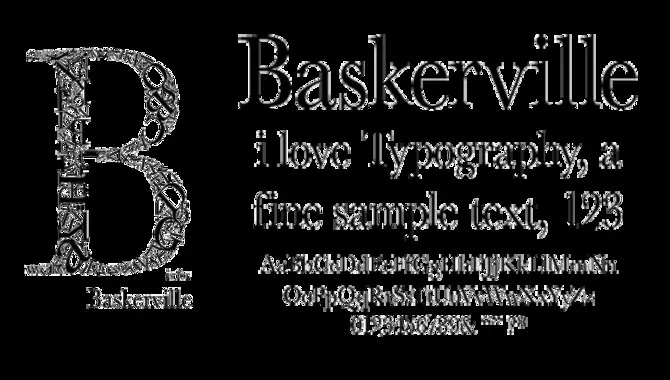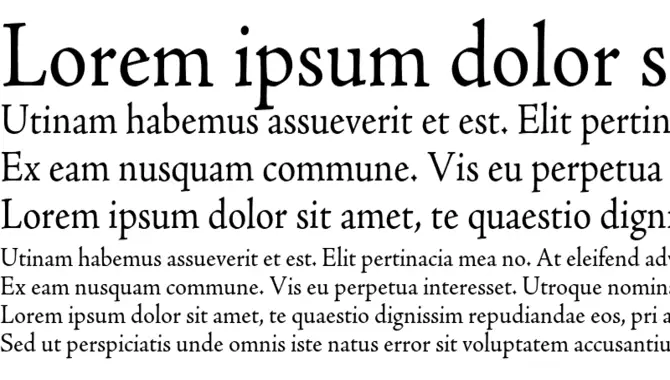
Roman numerals have been handy to represent numbers in various contexts for centuries. From clock faces to chapter headings, Roman numerals are a classic style choice for adding an elegant touch to any graphic design.
With so many options available, it’s easy to get overwhelmed and end up with a font that doesn’t quite fit your needs. When selecting a font for Roman numerals, the process differs slightly from choosing a font for regular letters.
Fonts are crucial for making an impression, and choosing the right one to match the intended tone and message is important. Fonts with smooth curves are widely regarded as the best font for displaying Roman numerals. Its elegant and visually pleasing design that captures the essence of the ancient numerical system.
Here, we will discuss everything you need to know about choosing the best font for Roman numerals. From understanding what Roman numerals are to considering the factors that influence the selection of the right font, we have got it all.
About Roman Numerals
When using Roman numerals, choosing the right font can make a big difference in legibility and aesthetic appeal. Unlike the decimal system we commonly use, Roman numerals use a combination of letters to represent numbers. Here are some factors to consider when selecting a font for Roman numerals:
- Clear and easy-to-read numerals
- Uniformity in the size and spacing of the numerals
- Elegant and professional classic appearance
- Compatibility with various design software and platforms
- Adequate height and thickness of numerals to ensure legibility
- Availability of various weights and styles to suit different design needs
The Best Font For Roman Numerals: 6 Options
Selecting the best font for Roman numerals can be challenging, as many fonts may not be compatible with Unicode’s Private-Use Area. A discussion thread on a forum about the suitable font for Roman numerals reveals that Times New Roman is a great alternative.
Using the Times New Roman Bold style, this font is commonly used when creating Roman numeral vector art. However, it is essential to note that specific fonts may have semantic differences that require a separate encoding for Roman numerals. It is crucial to consider this when choosing the best font for your project to ensure that the numerals are accurately represented.
1. Bembo
Bembo is a popular, excellent choice when choosing a suitable font for Roman numerals. Designed in the 16th century by Ludovico Bembo, this typeface is known for its elegant style and ease of use.
Bembo numerals are available in various weights and styles, making it a perfect choice for any document or project. In addition to being versatile, Bembo numerals are also available in different languages, making them a great option for creating international documents.
2. Baskerville
Baskerville is a popular option when choosing a suitable font for Roman numerals. This serif typeface is great for typography and has a classic and elegant look. You can use Mauren and Megalona, which are great sans-serif font serif fonts for historical documents.
If you’re looking for an example of historic lettering, “The Book of Ornamental Alphabets: Ancient & Medieval” has an example of 11th-century lettering with Roman numerals. In addition, the distressed metal letter “V” with Roman numerals is available in high resolution.
3. Caslon
Caslon is often considered one of the best fonts for Roman numerals. With its classic and elegant design, it complements the timeless nature of Roman numerals.
The clean lines and distinct serifs of Caslon make it easy to read and distinguish each numeral, ensuring clarity and precision. For a formal document, a logo design, or any other purpose, choosing Caslon as your font can add a touch of sophistication and style.
4. Restora Neue Bold
However, you can use other fonts to make an impact. Restora Neue Bold combines medieval and modern styles to create a classy and confident look. It’s a daring yet readable font, perfect for book covers and branding. Another font to consider is Romans R examples.
This script font has stunning typographic harmony and works well for luxury labels and designs. Use these fonts in your product designs, social media posts, and advertisements. Both Restora Neue Bold and Romans Rexamples are available for an easy download, making it easy to choose the perfect font for your needs.
5. Times New Roman
When selecting a font for Roman numerals, Times New Roman is a popular choice. It is widely available for download in various file formats, including vector art. However, it’s worth considering alternative fonts such as Helvetica or Merriweather. Merriweather is a versatile serif font that is softer than Times New Roman and may be more suitable for certain applications.
6. Garamond
Garamond is often considered one of the best fonts for Roman numerals. With its elegant and timeless design, Garamond perfectly complements Roman numerals’ classic aesthetic. Its clean and legible letterforms make each numeral easily distinguishable, making it ideal for displaying Roman numerals in various contexts such as wedding invitations, certificates, or even tattoo designs.
5.What Font Is 1999 In Roman Numerals?
Ans: The font used for 1999 in Roman numerals can vary depending on the specific design or style chosen by the designer or typographer. There is no specific font that is exclusively used for Roman numerals, as they can be represented in various typefaces and styles.